Best Font For Blog Header. The letters aren’t too thick and the tags that hang off don’t distract the reader. Sans serif for online, serif for print (or downloadable documents intended for printing) keep fancy fonts to a minimum and limit to headings and accents.
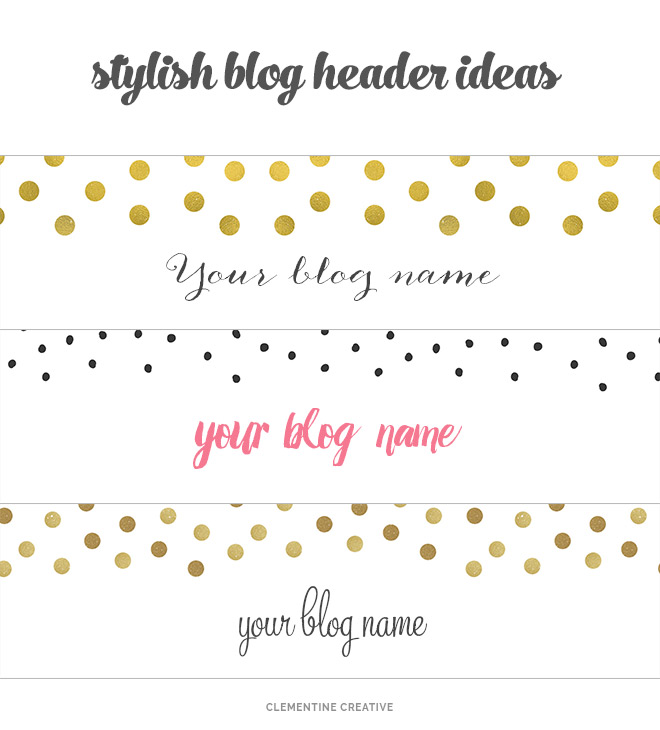
The smooth and clean curves of the font offer a refined and elegant touch to the headings of your bog and hence enable you to gain the attention of lots of visitors to your website or blog as well. The regular and bold versions are especially useful for headlines and titles, making it one of the best clean fonts. It's an important decision and you should weigh up your personal choice with the following rules to help you choose the best font to use for your blog:
The Letters Aren’t Too Thick And The Tags That Hang Off Don’t Distract The Reader.
Ad compare the 10 best blog platforms. Click to find the best 184 free fonts in the header style. Available in 10 different styles, open sans is best suited for heading, however, can be used for body content without a glitch.
Linotte Is A Sans Serif Typeface With A Rounded, Friendly Look To It.
Examples Of Modern Fonts Are:
Find the best site to build your blog today! Flix is a modern and unique display font specially made for headlines and titles. This pairing is a great way to add some drama to your page without making the whole thing feel over the top.
These Fonts Are Suitable For Use In Blog Header And Titles.
The font also comes in 2 different styles featuring regular and outline designs. Almost 1,000 font families are available at the time of this article, and that number always seems to grow. The best google fonts for blogging and website content.
Modern Fonts Are Associated With Smart, Trendy, Intelligence, Style, And Sharp.
Designed by steve matteson, open sans is my favorite font to use on a blog or website. The regular and bold versions are especially useful for headlines and titles, making it one of the best clean fonts. For a more elegant look, lora is placed among the best wordpress fonts for modern websites.